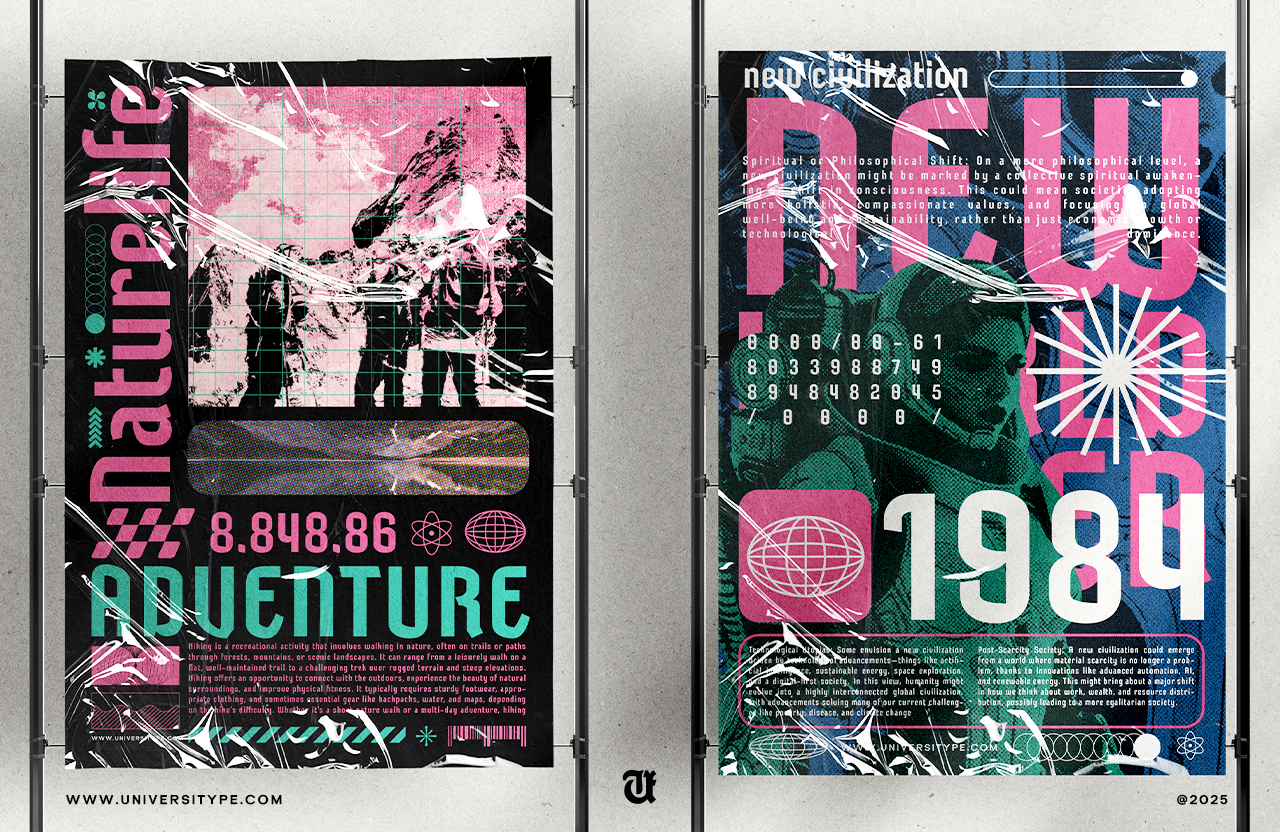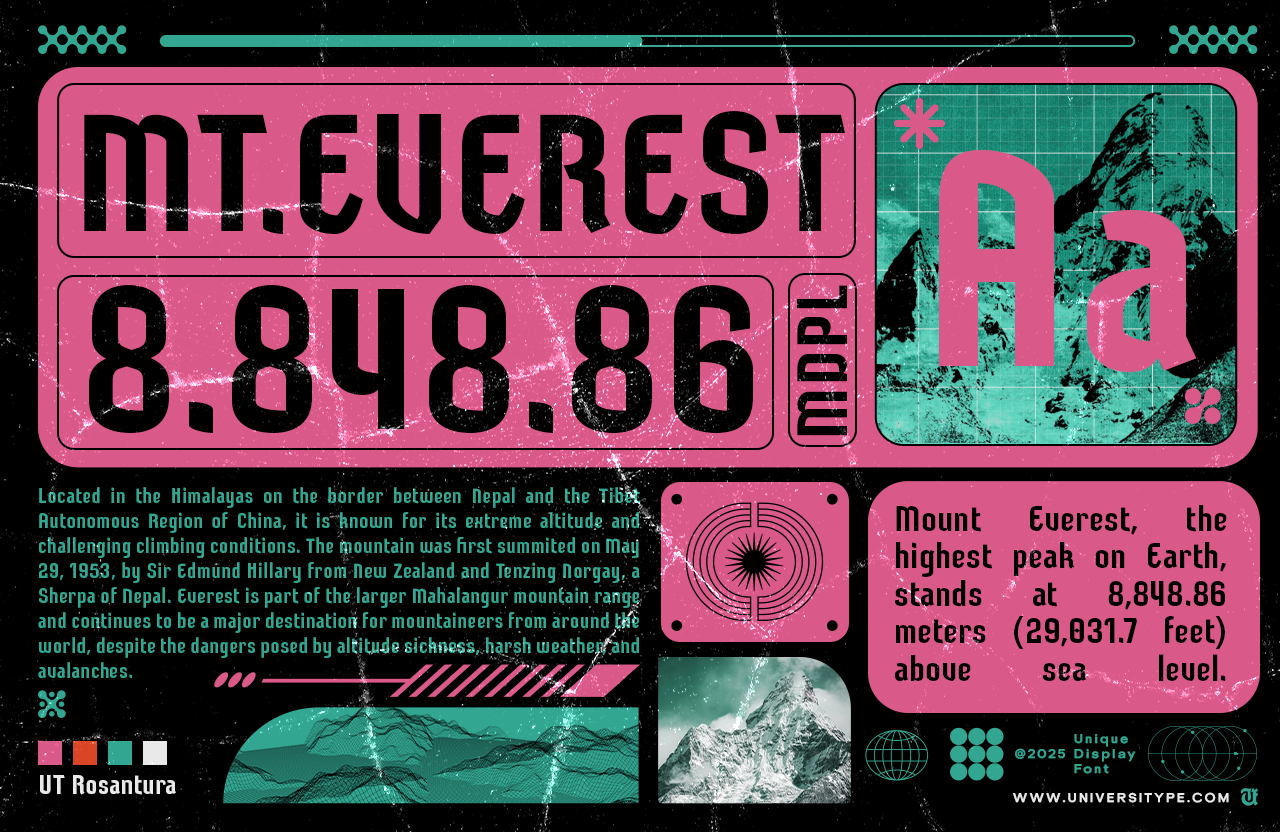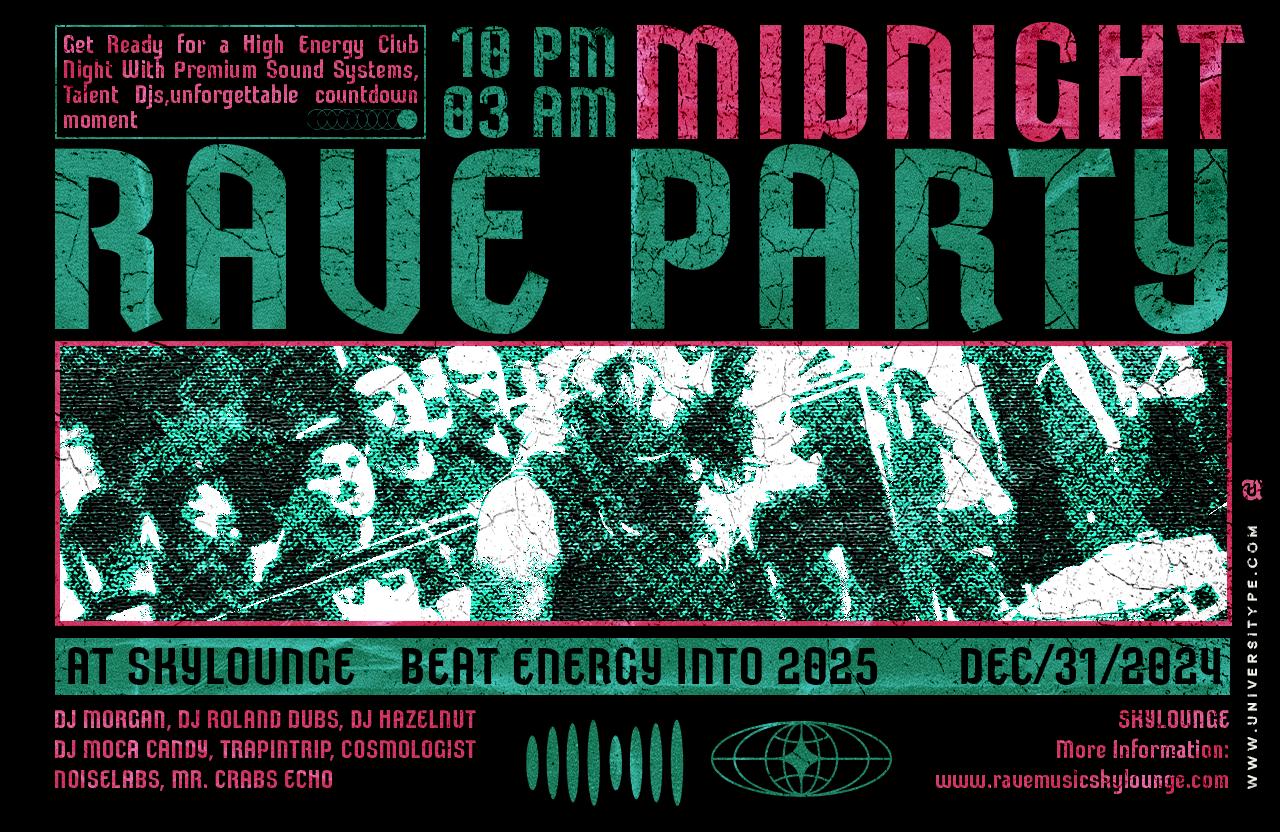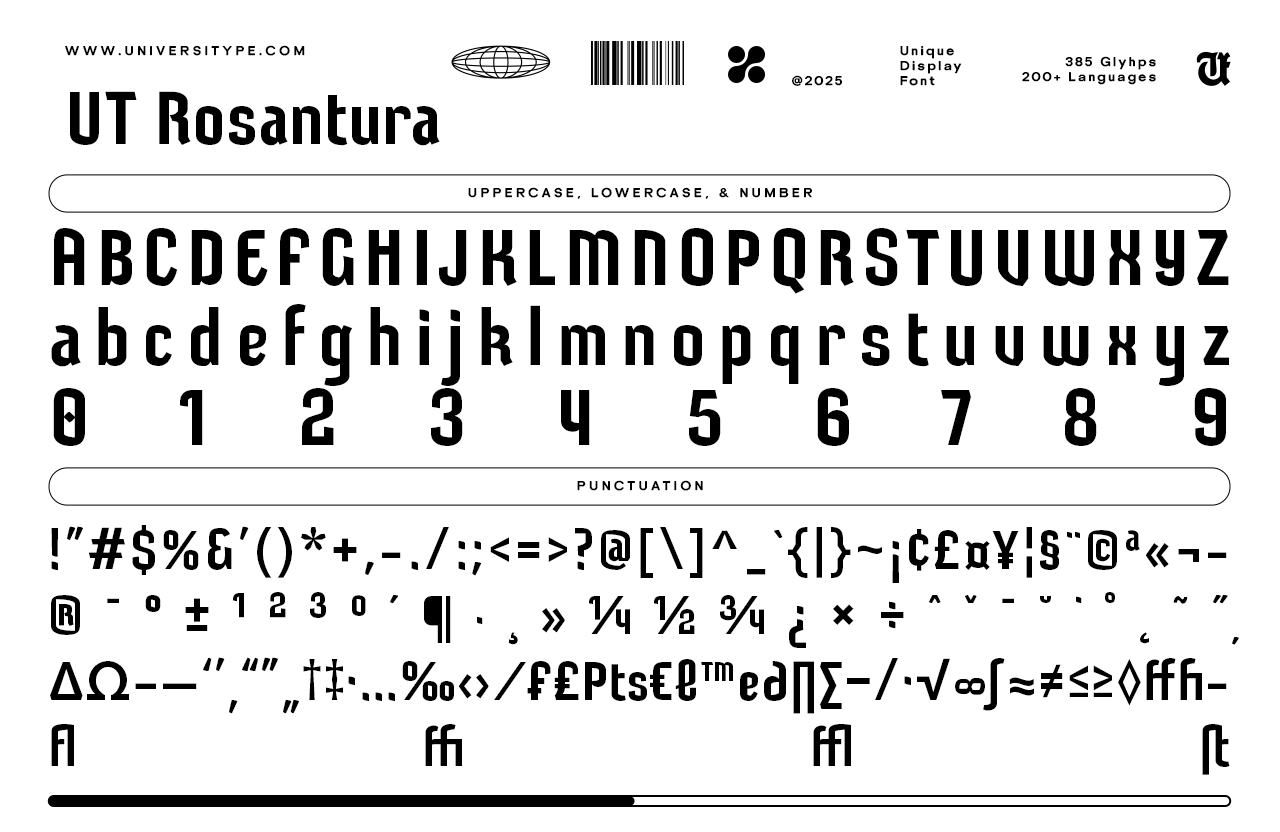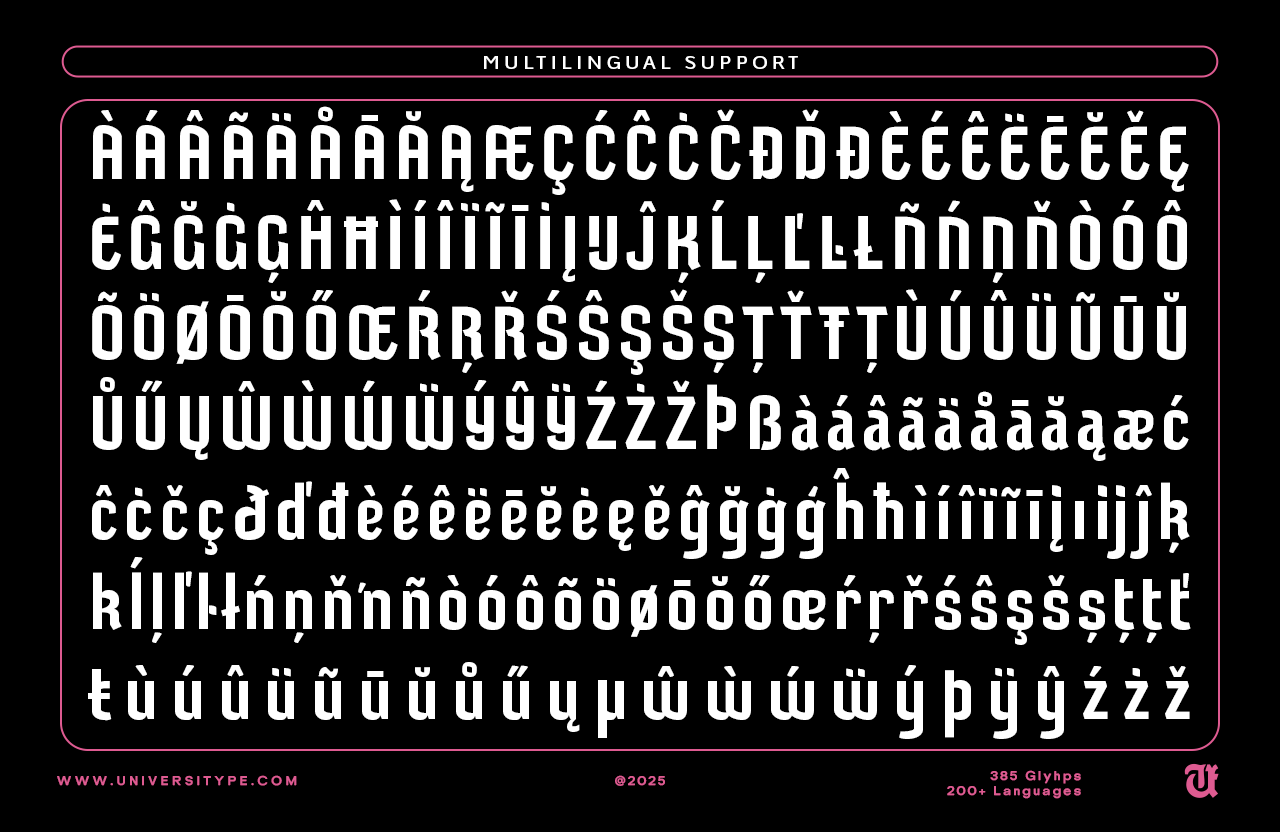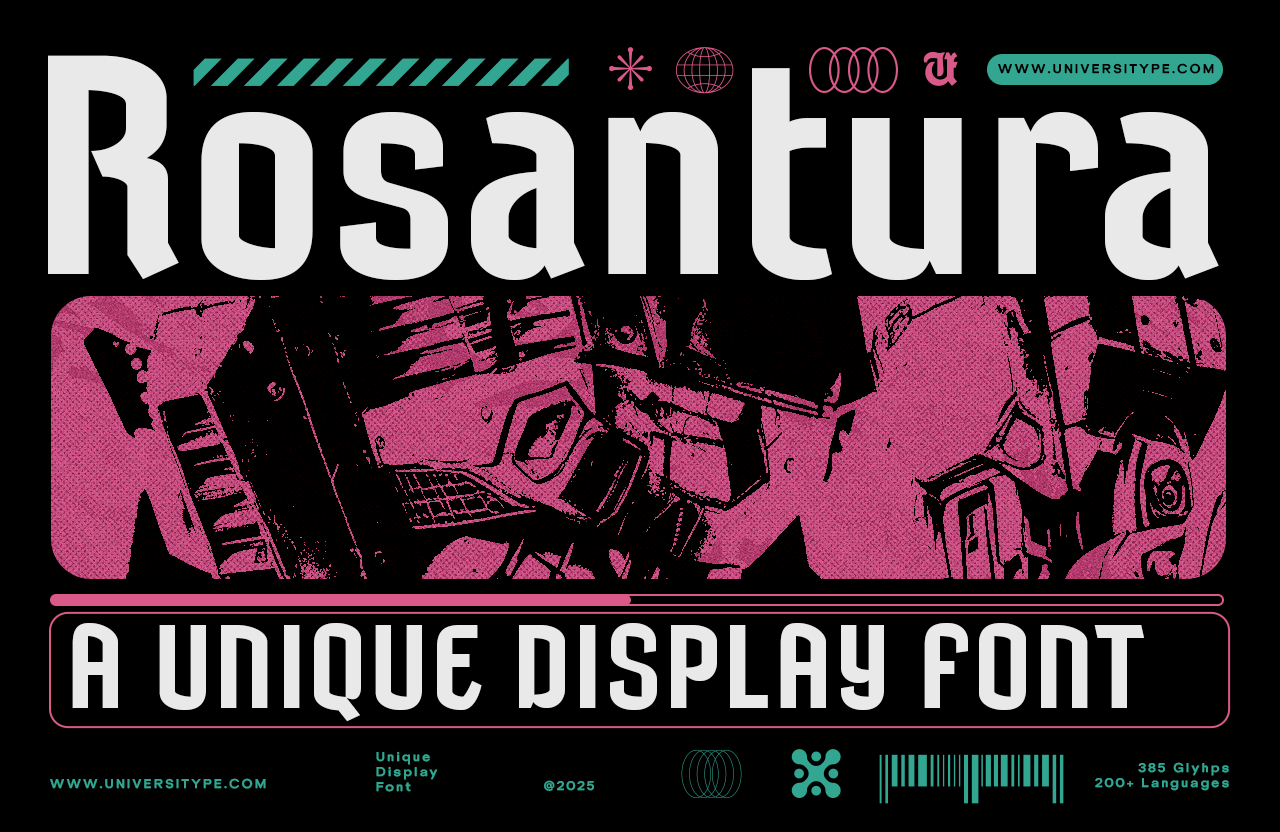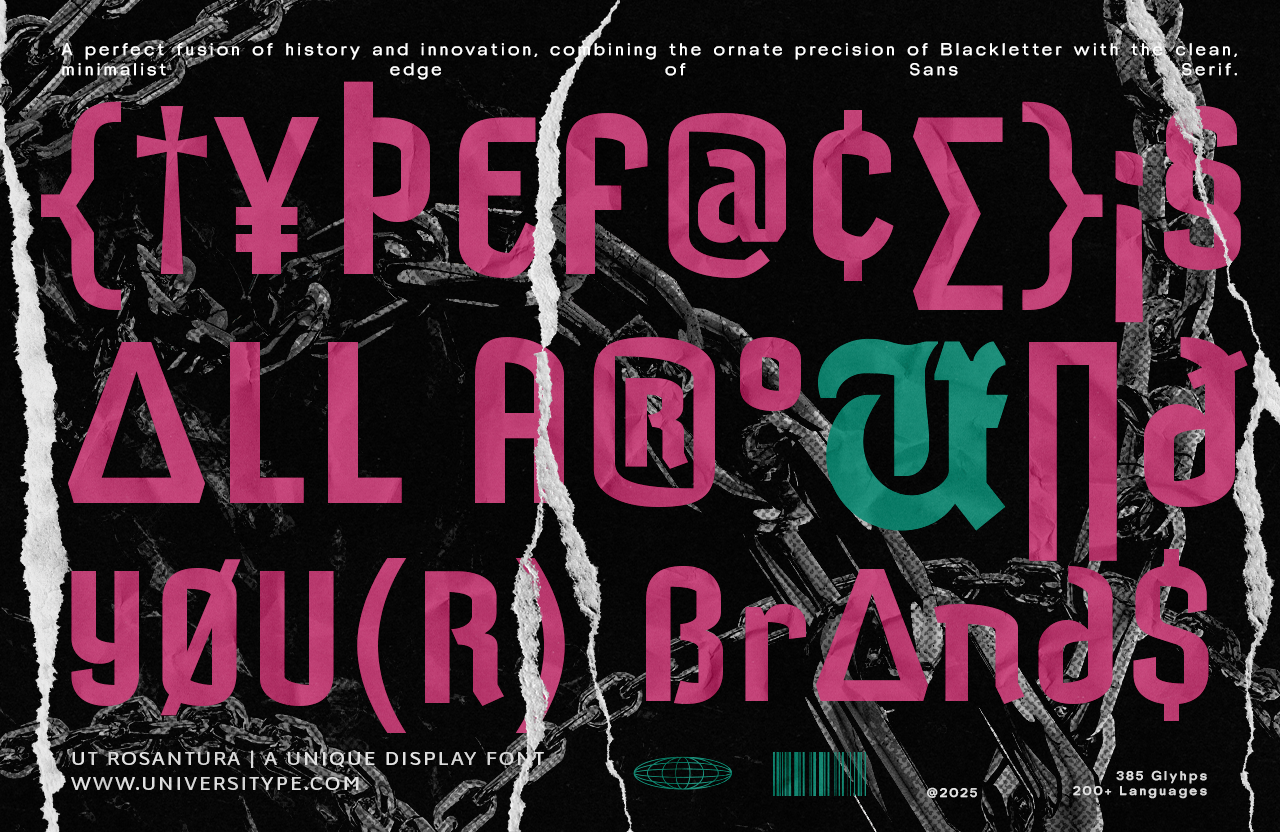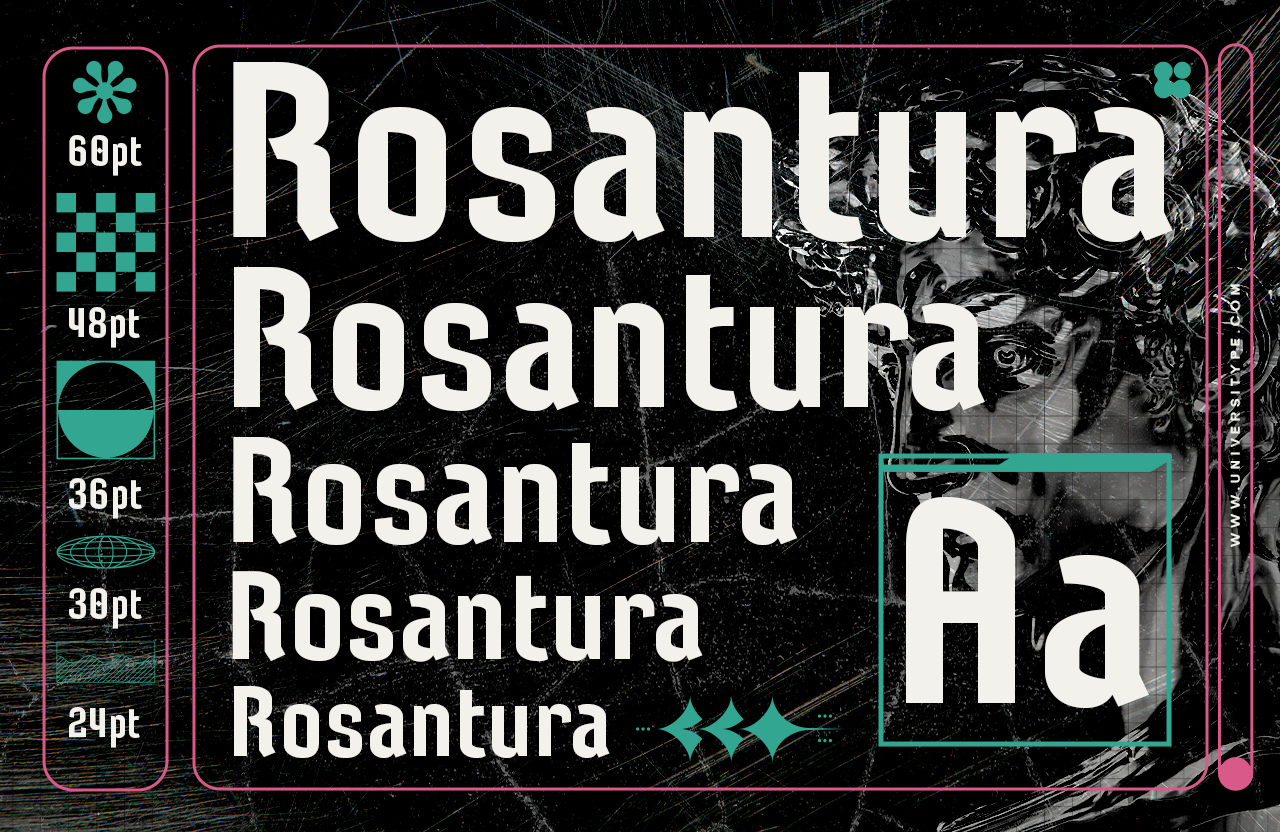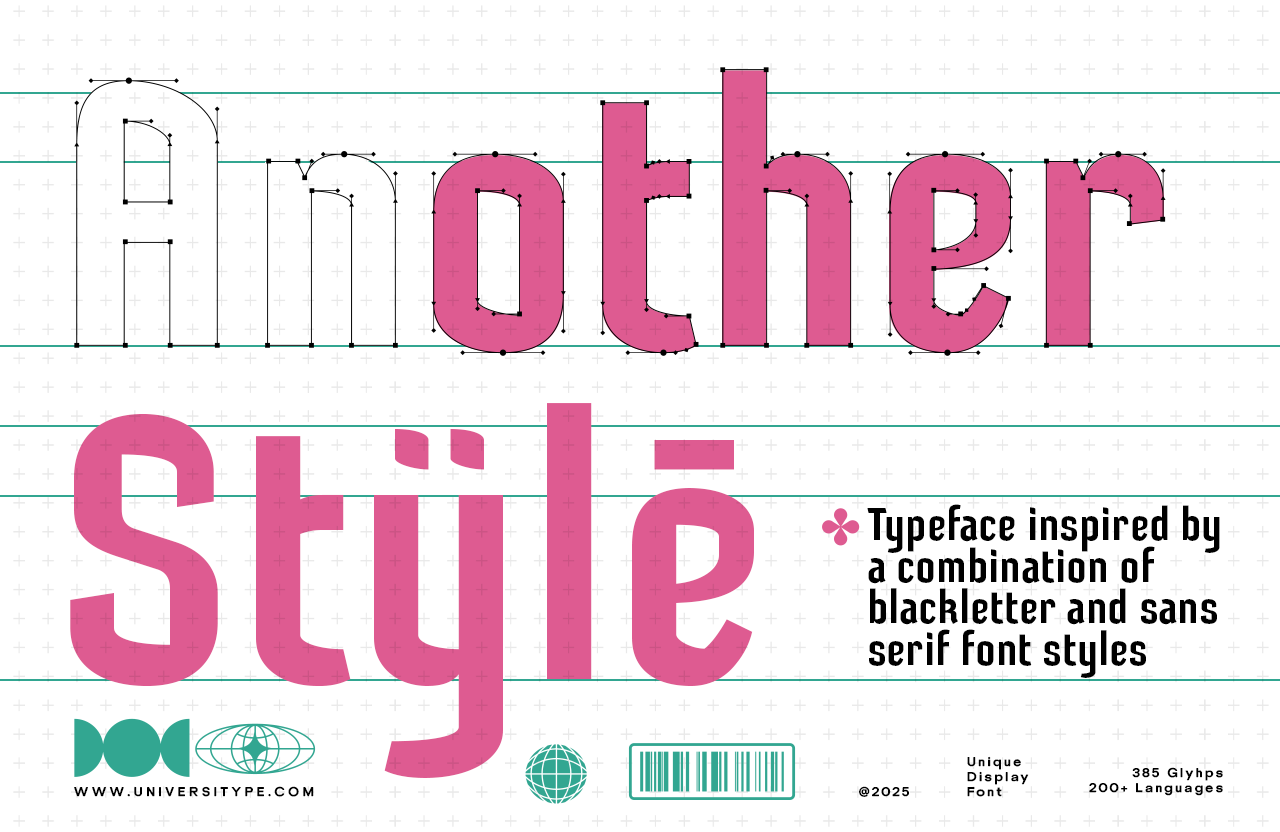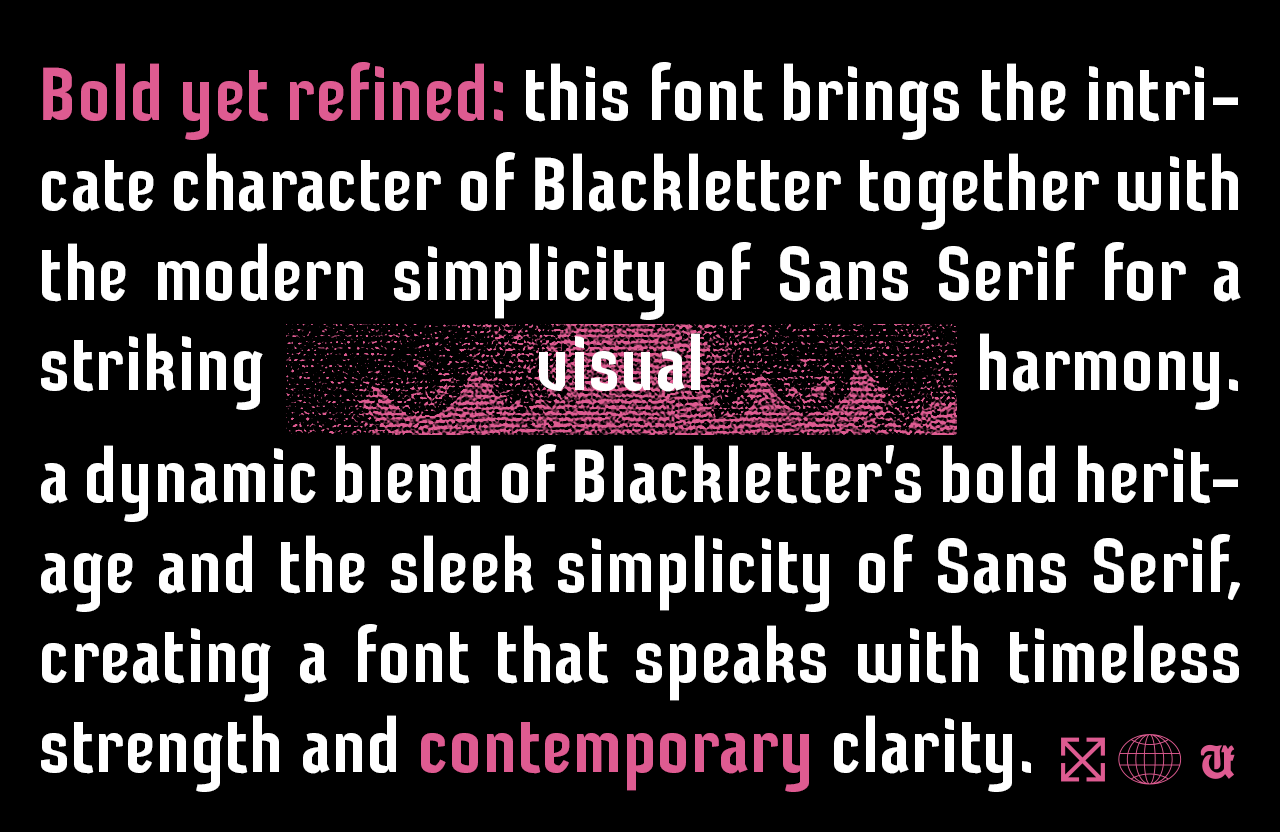
UT Rosantura - A Unique Display Font
UT Rosantura is a striking display font that seamlessly blends the intricate elegance of Blackletter with the clean, modern lines of Sans Serif. This unique typographic fusion makes UT Rosantura an ideal choice for designers seeking to create bold, impactful statements in their visual communications. Perfect for graphic designers, typographers, and creative professionals, UT Rosantura offers a distinctive and versatile typeface that enhances any design project with character and depth.
Key Features:
- Multilingual Support: With coverage for over 200 languages and 385 glyphs, UT Rosantura is designed for global reach and diverse communication needs.
- Versatility: Ideal for display purposes such as posters, headings, and branding materials, UT Rosantura's style adapts to various design contexts.
- Readability: The font ensures clear and legible text even at larger sizes, making it effective for conveying messages powerfully.
Inspiration Behind the Design:
UT Rosantura draws inspiration from the rich history of Blackletter, known for its intricate and ornate design, and pairs it with the clean lines of Sans Serif, which represents modern minimalism. This fusion results in a typeface that is both historically rooted and forward-thinking, making it a perfect choice for projects that aim to bridge the past with the present.
Usage Suggestions:
- Branding: Create a memorable brand identity that stands out using UT Rosantura's unique blend of old-world charm and contemporary clarity.
- Event Promotion: Design eye-catching posters and flyers for music festivals, cultural events, and more, leveraging the font's strong typographic presence.
- Digital Media: Enhance your digital content with UT Rosantura to capture attention and make a lasting impression.
- Print Media: Apply UT Rosantura to impactful print designs like magazines, brochures, and books for a distinctive and professional look.
- Features: Multilingual support, various sizes and styles for customization
UT Rosantura is a must-have for any creative’s arsenal, helping you create designs that are both impactful and memorable, whether you’re working on a global campaign or a local project.